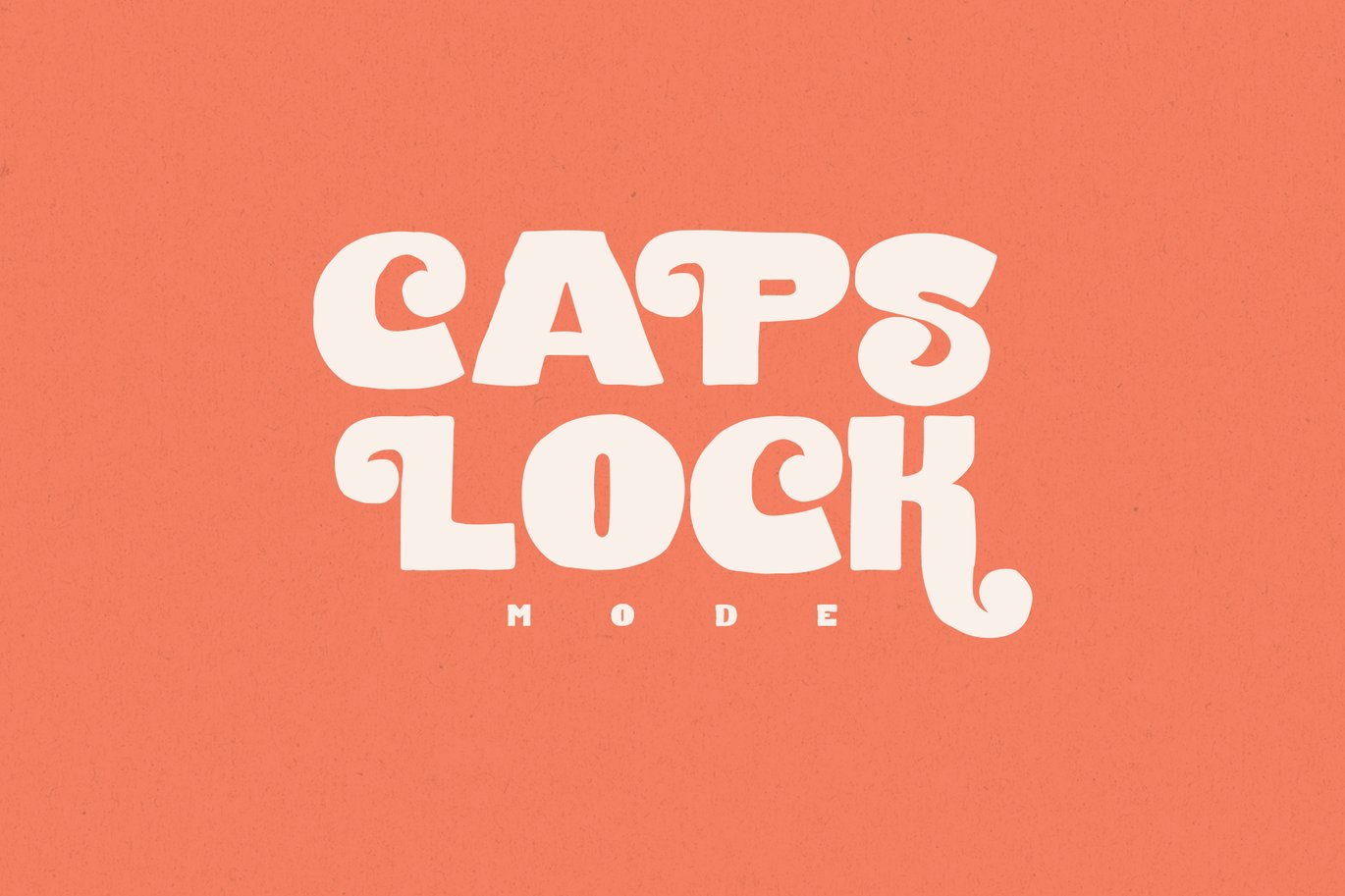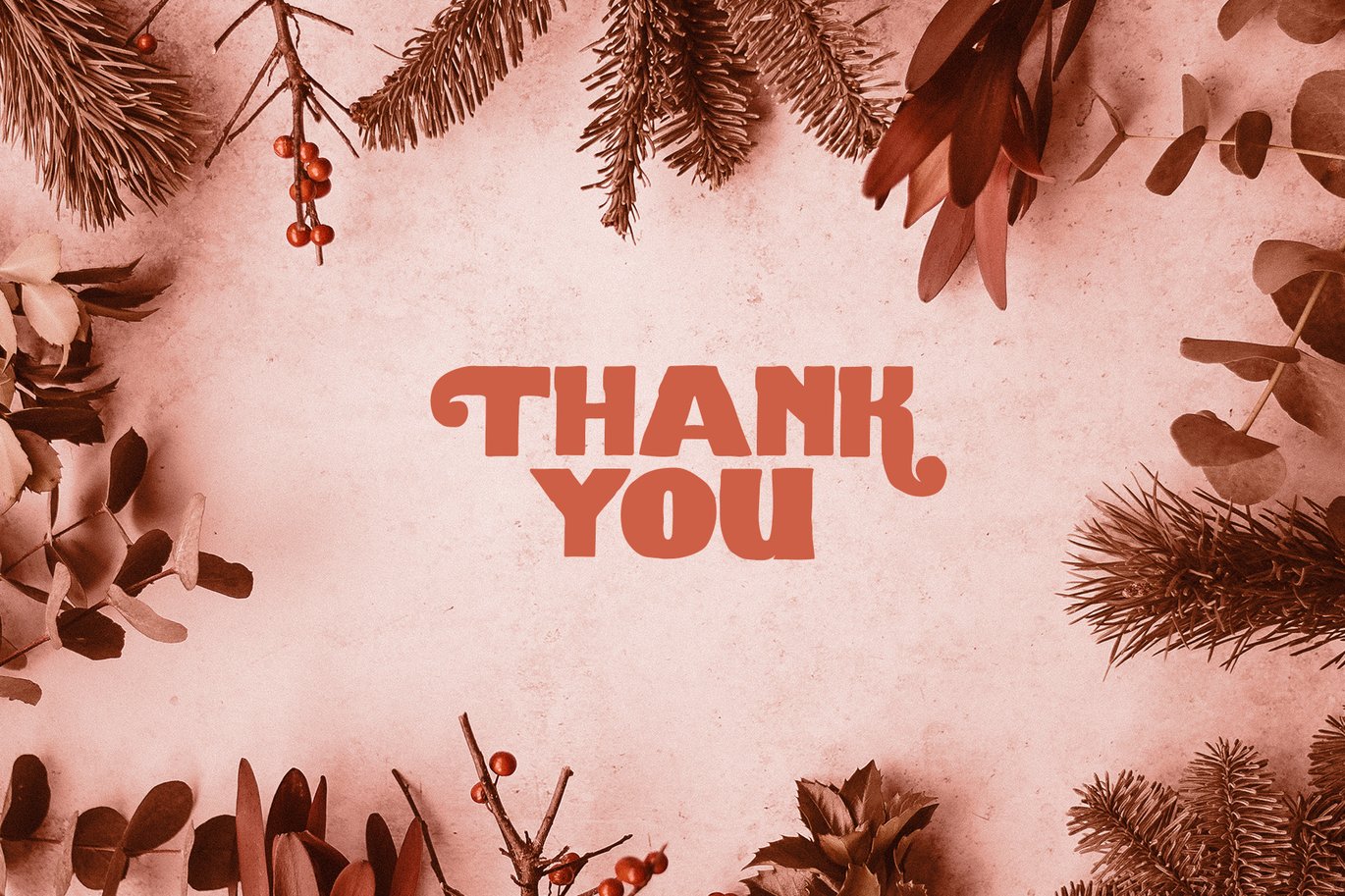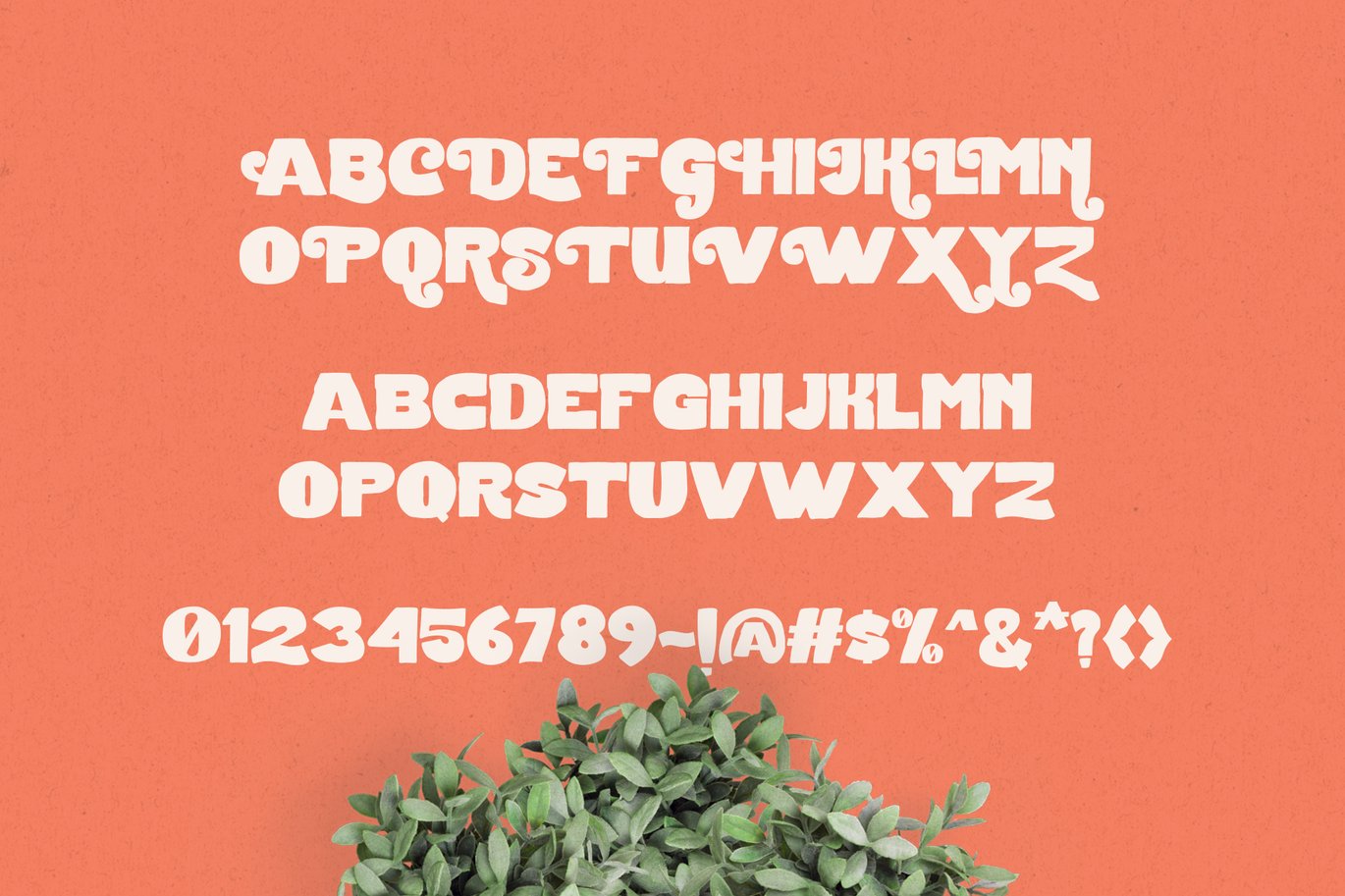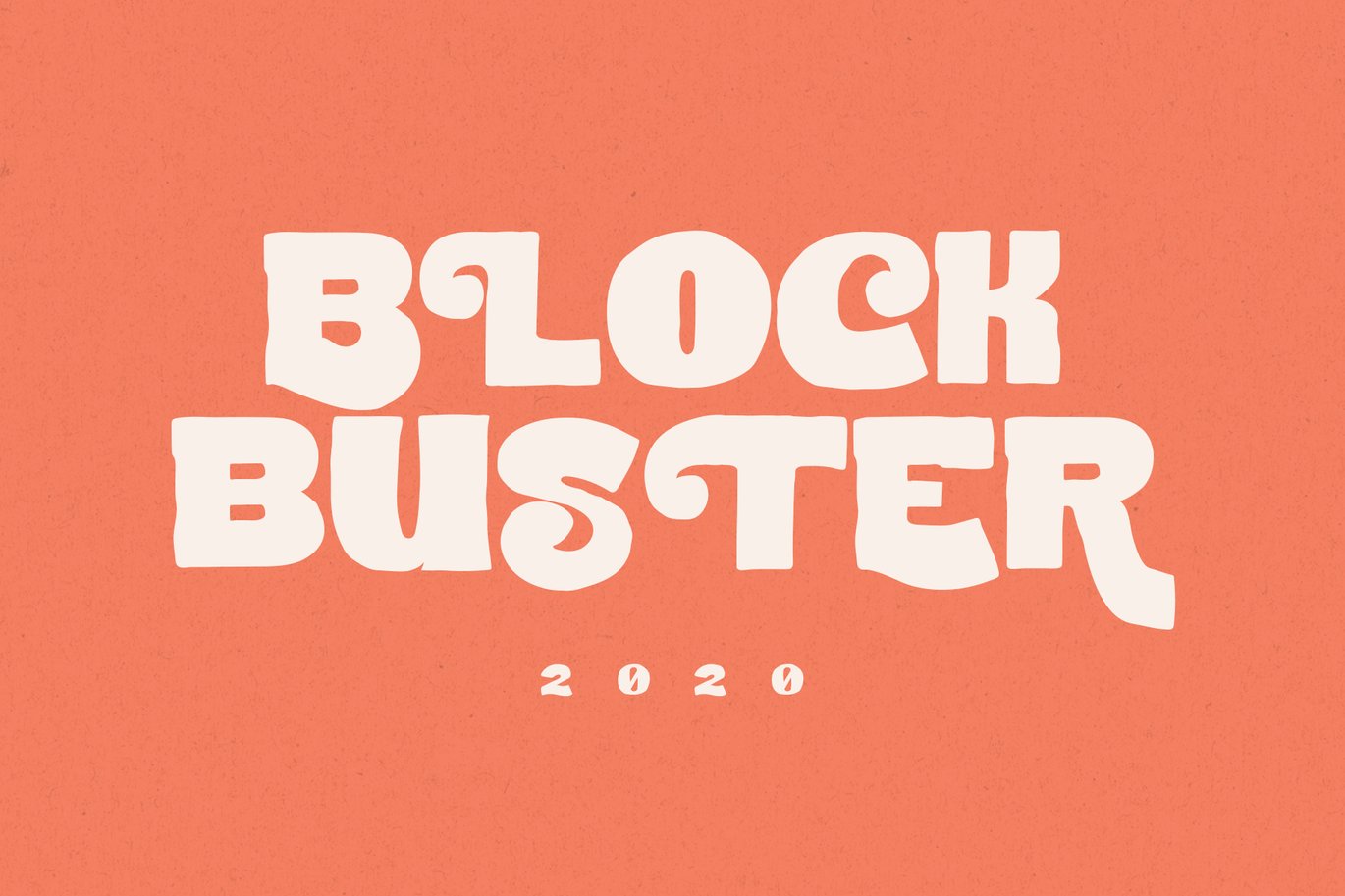
Path Black Typeface
a PATH BLACK Typeface is Display Font, Unique font and BOLD. Can make it easier to convey the message in your design. Use for awesome display, Logo, labeling, clothing, movie sceen, poster, movie title, gigs, album covers, logos, and much more.
Uppercase & Lowercase (capital version)
Numerals & Punctuations